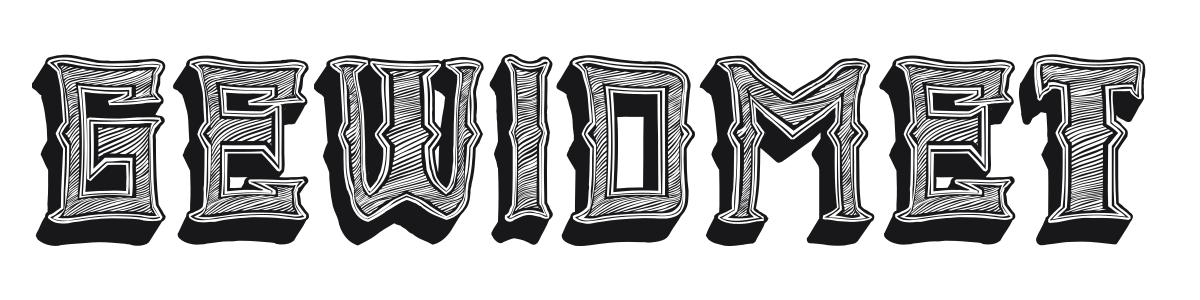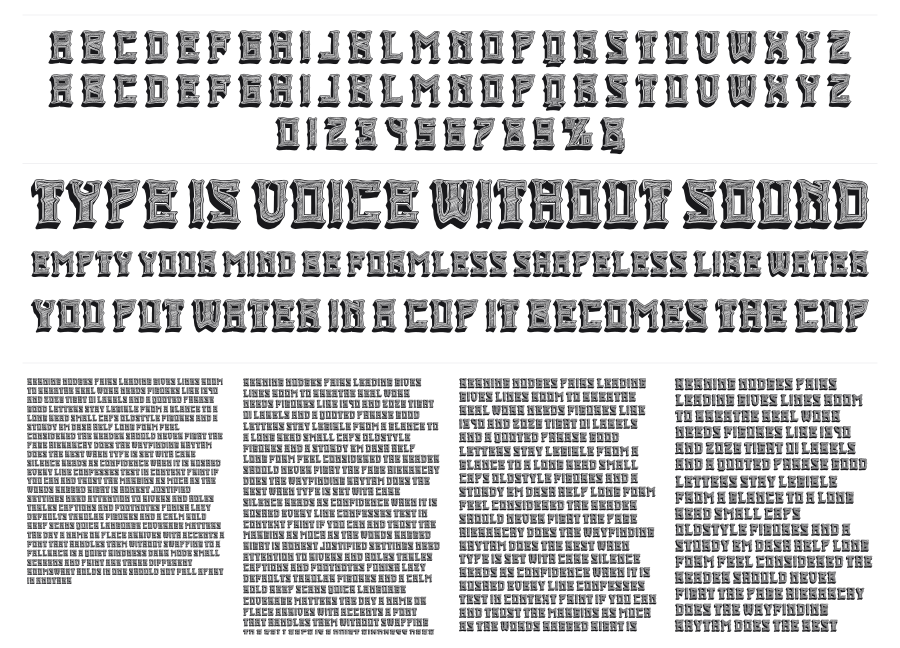
Gewidmet
Gewidmet is a bold gothic display font with a deeply ornate, engraved texture filling every stroke. The dense crosshatch fill and thick drop shadow give each character a carved, three-dimensional presence that reads immediately as heavy metal or medieval. It commands attention at large sizes and brings serious weight to any headline, poster, or album cover.